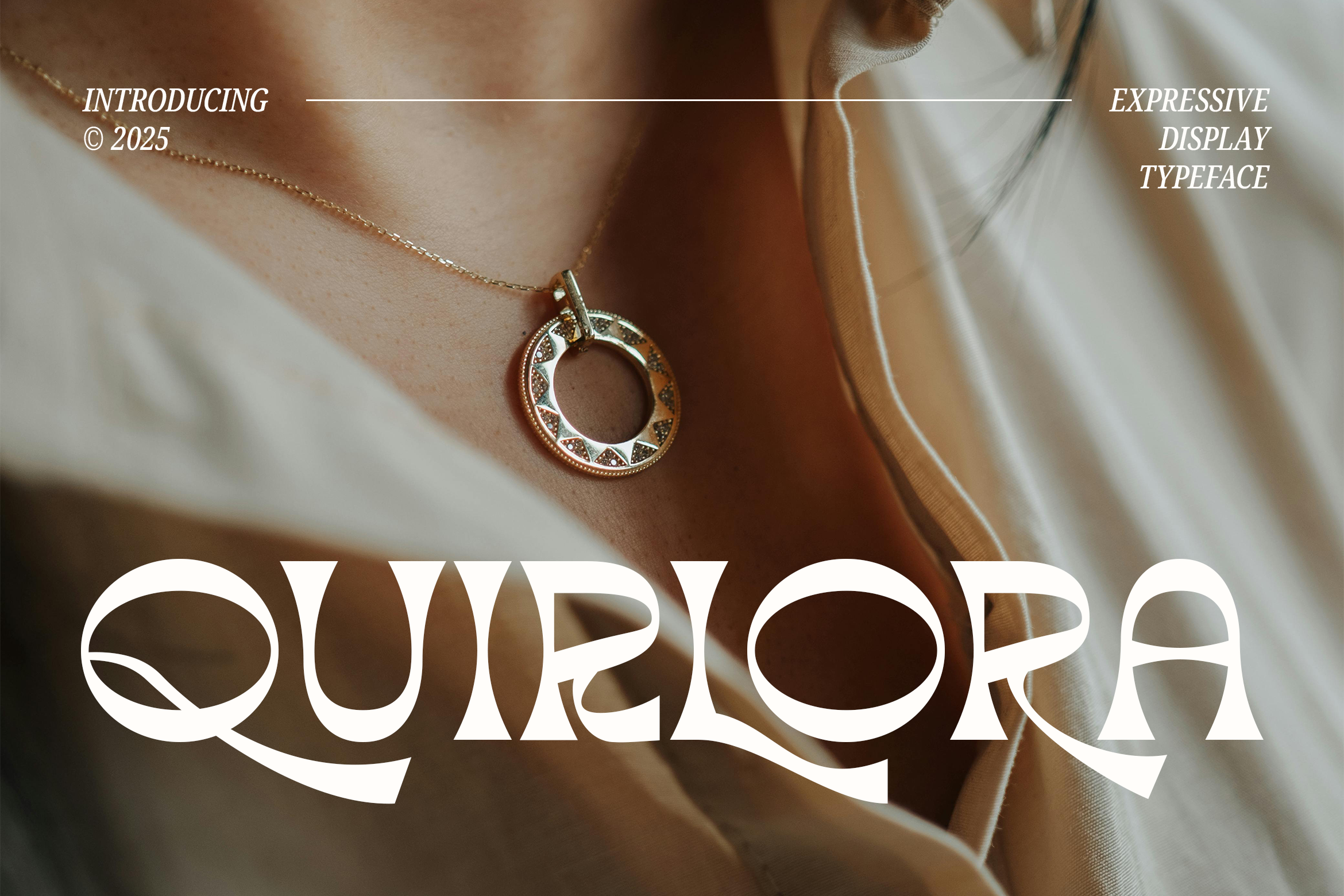
Quirlora Expressive Display Typeface
Introducing Quirlora – An Expressive Display Typeface.
Quirlora is bold, artistic and full of personality, perfect for adding flair to any creative project. Use it for posters, packaging, social media graphics, websites and more. Every curve and stroke is designed to capture attention and spark imagination, making your message stand out with expressive energy and creative charm.
- Multilingual & Ligature Support
- Full sets of Punctuation and Numerals